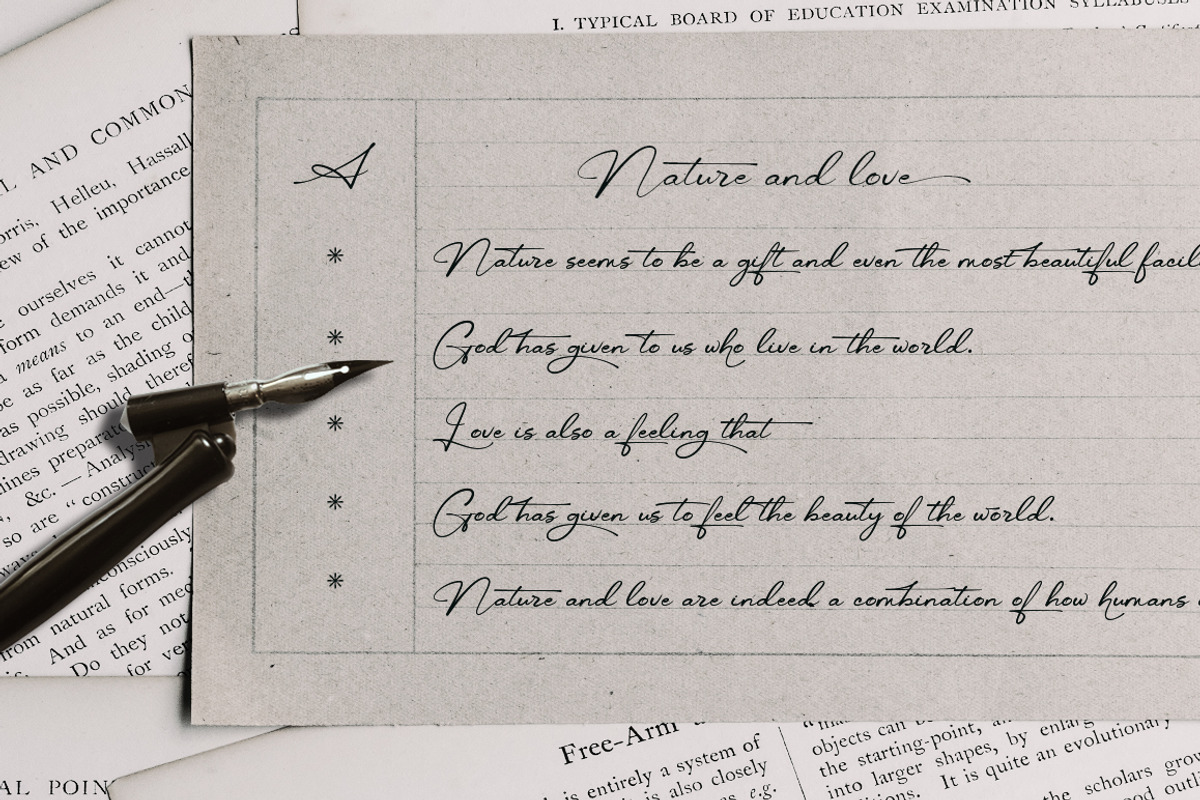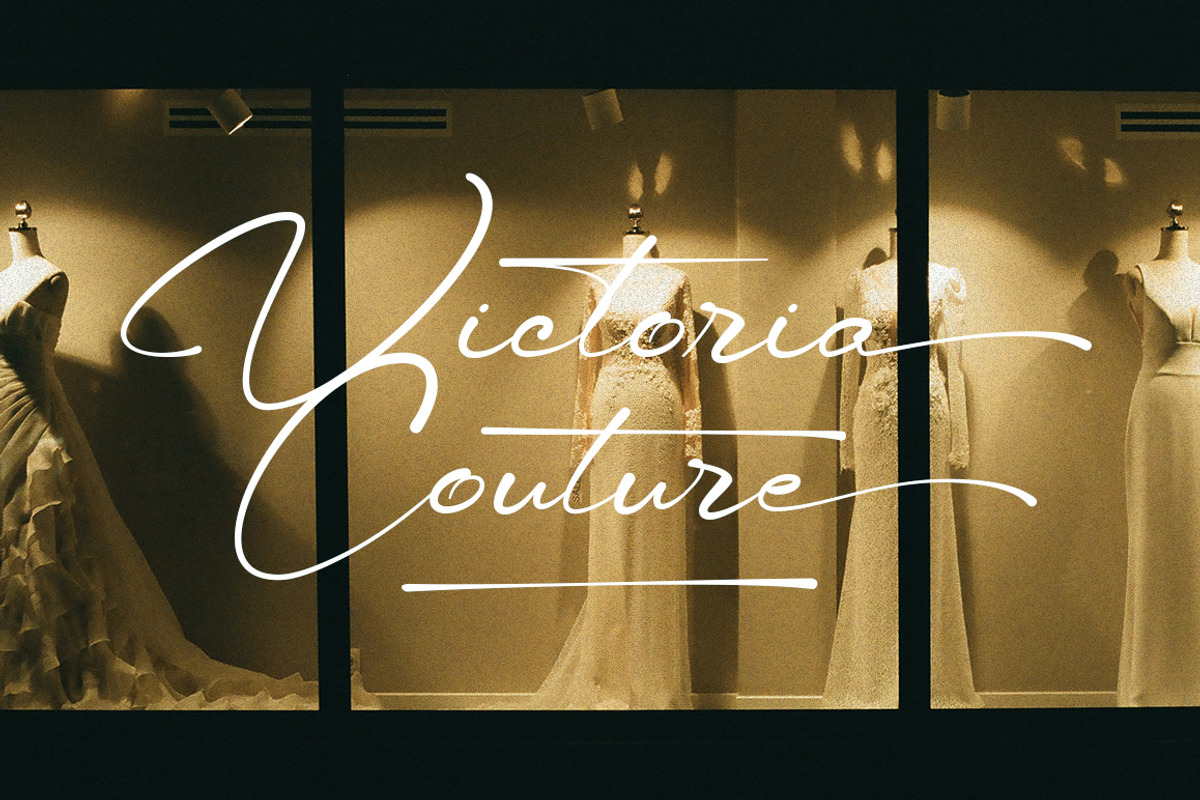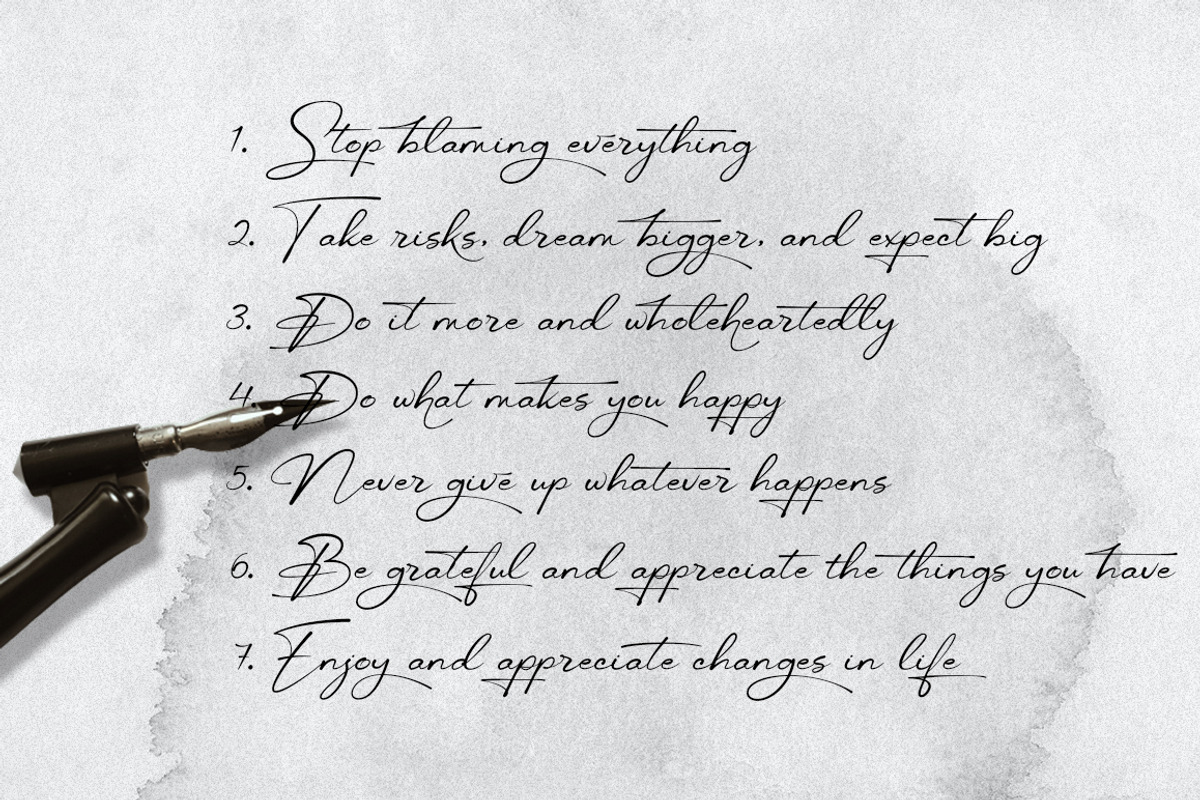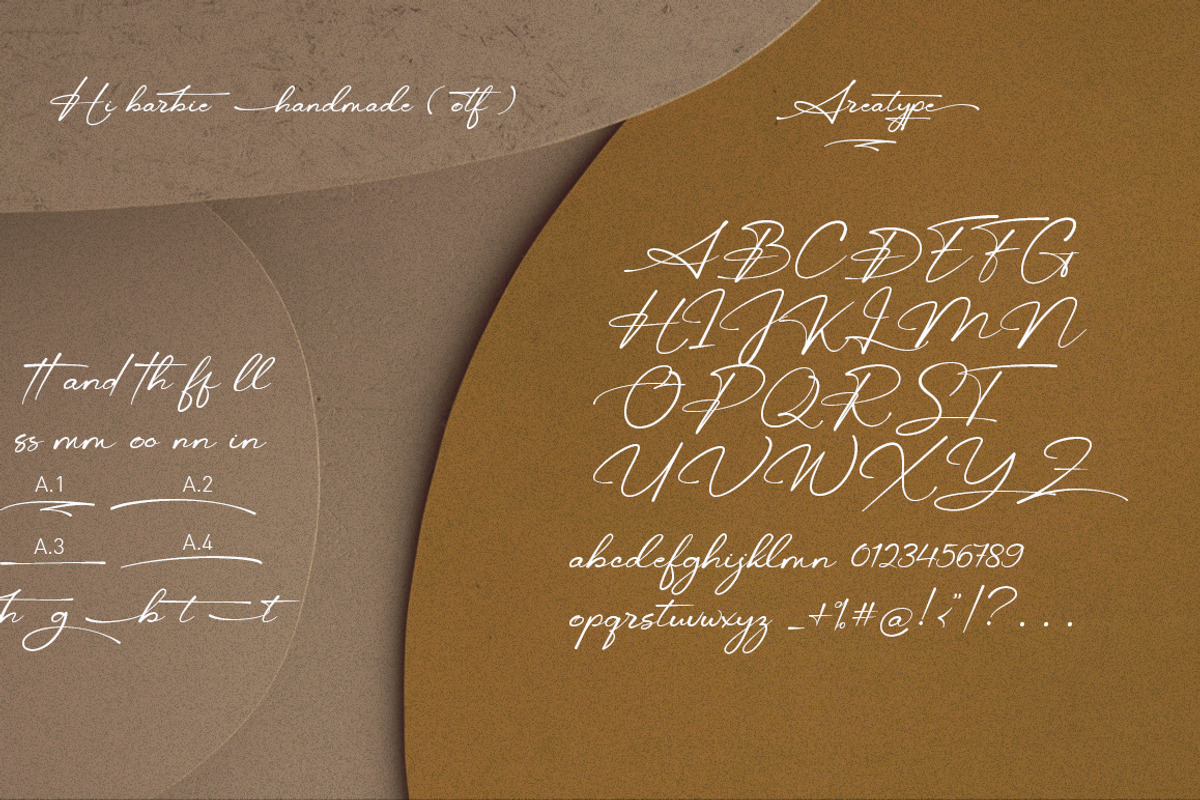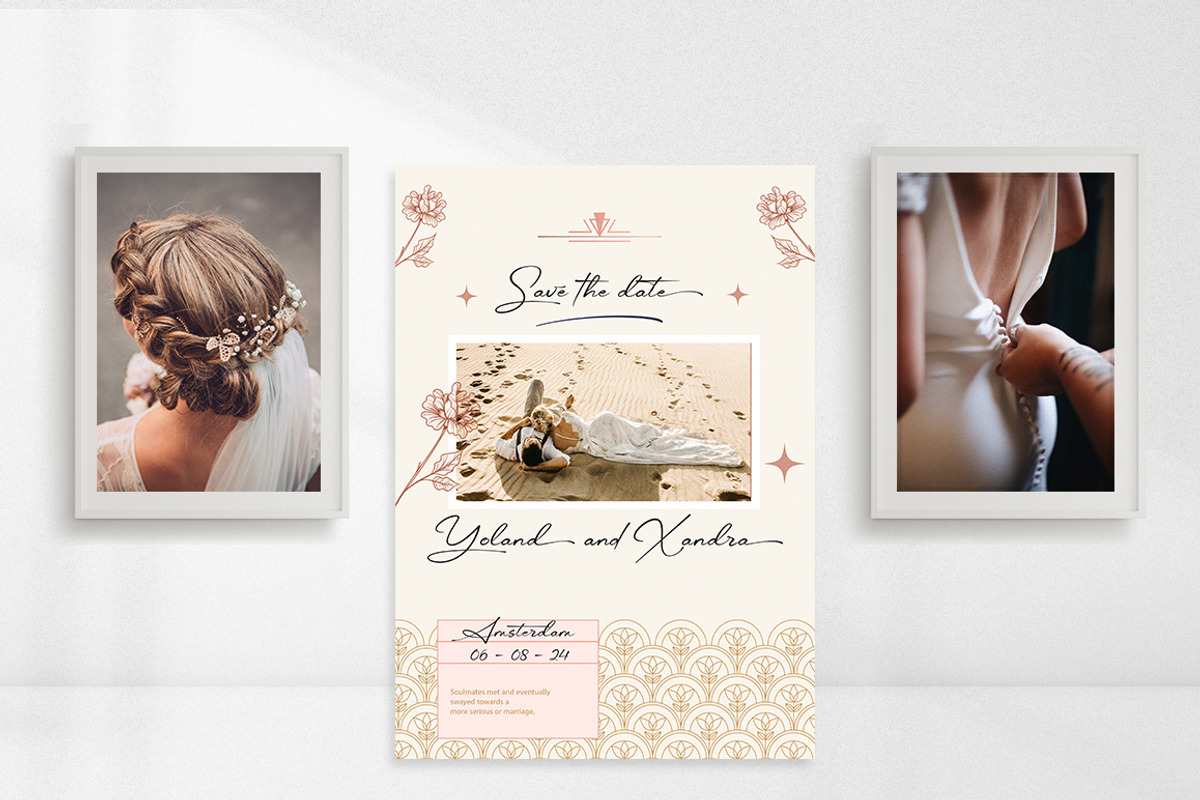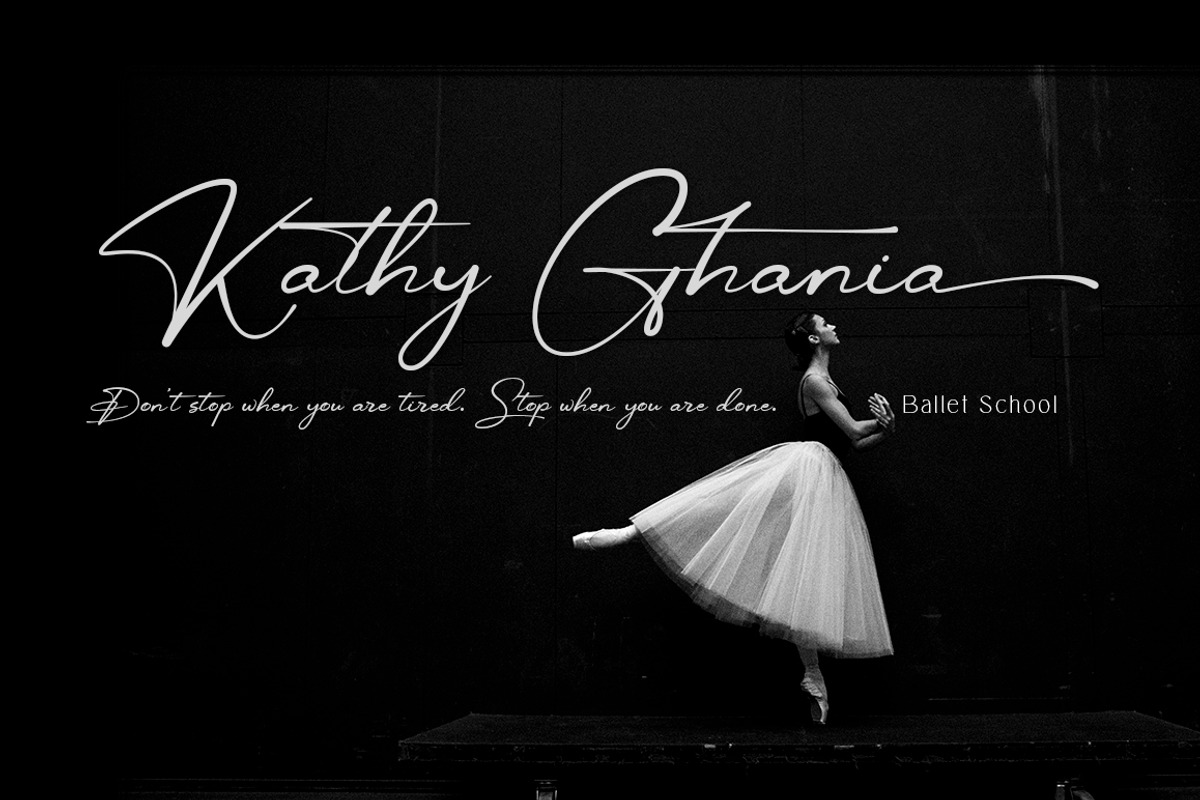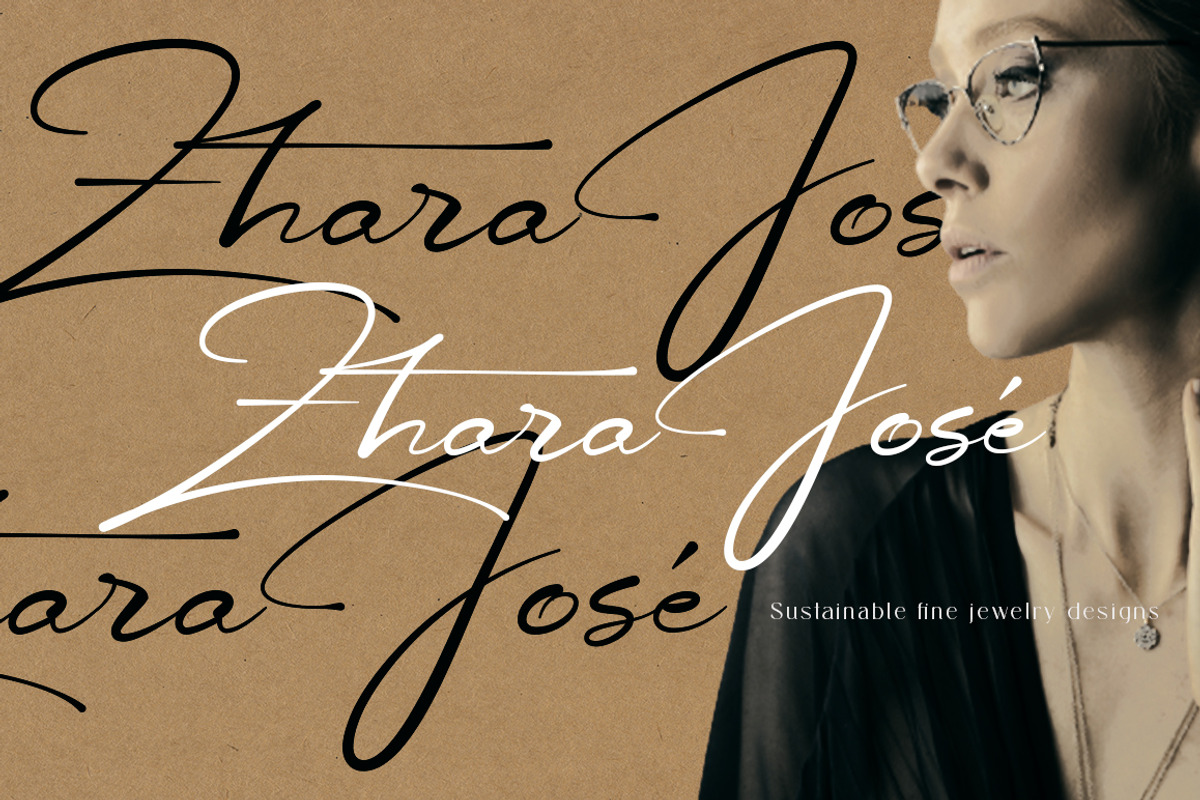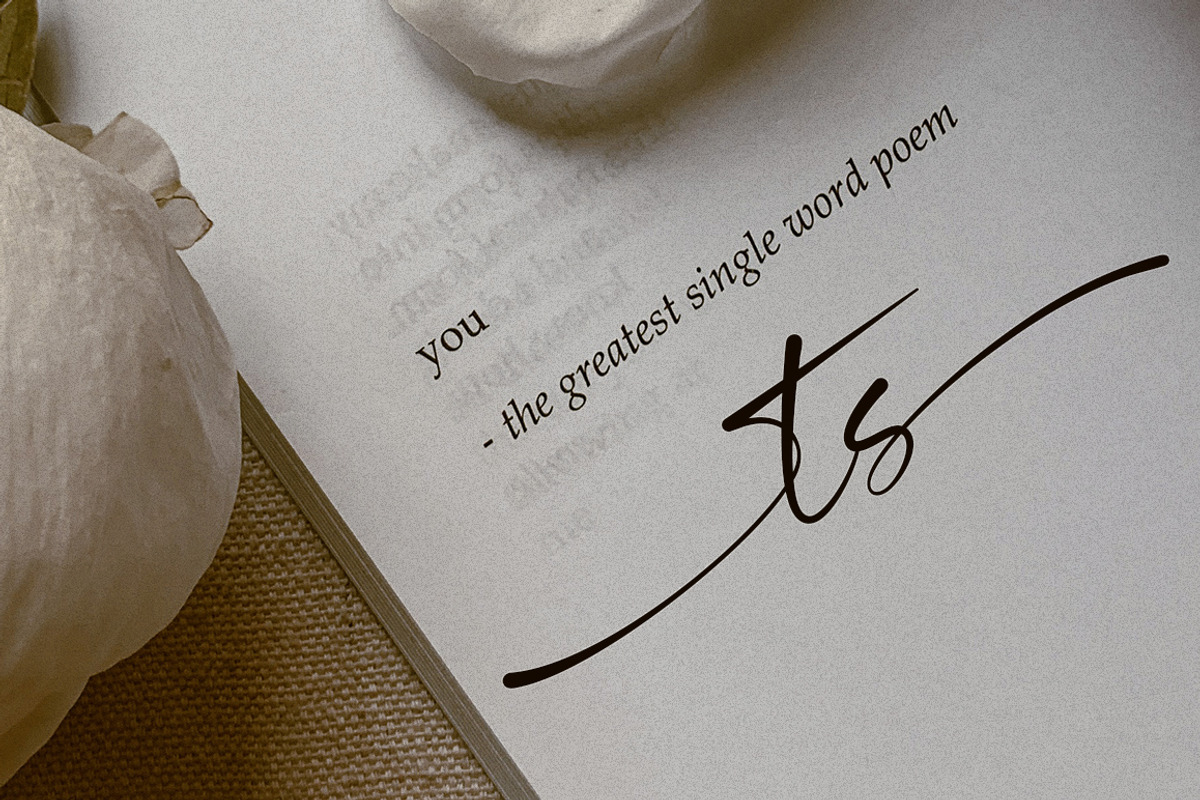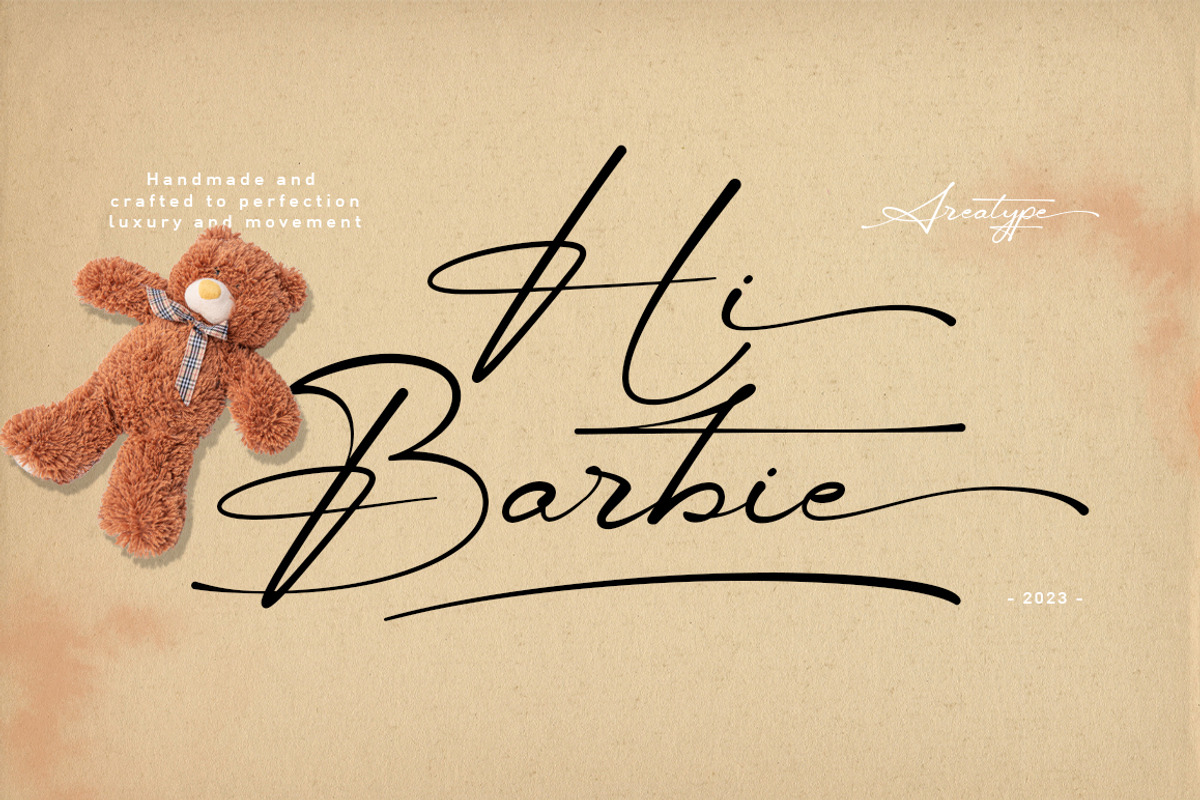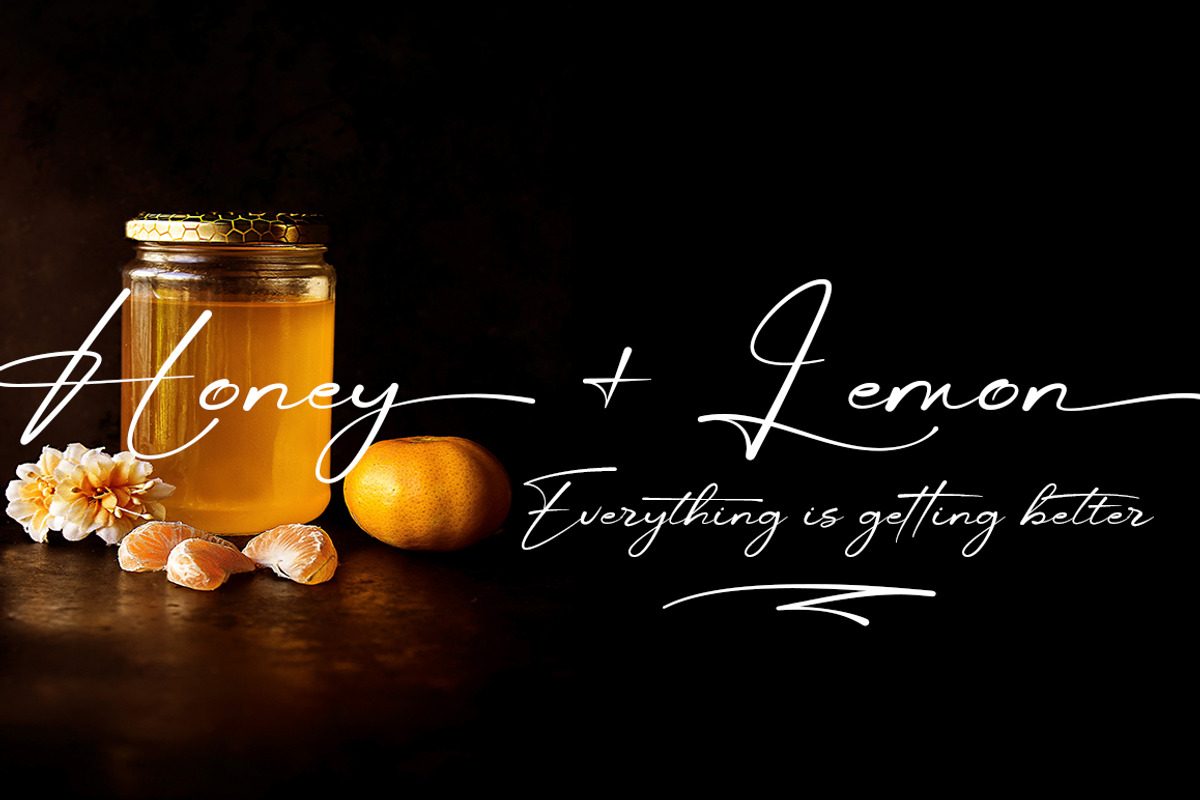
Hi Barbie Handmade
Hi... I am excited to introduce my new font - Hi Barbie handmade
Hi Barbie is a lovely calligraphic handmade modern, I hope you are interested in this font, dynamic and pretty with swashes. Can be used for many purposes. such as title, signature, logo, wedding invitations, letterhead, signage, labels, newsletters, posters, badges, etc.
Hi Barbie handmade features Open type, including the initial and terminal letters, ligatures and International support for most Western languages included.